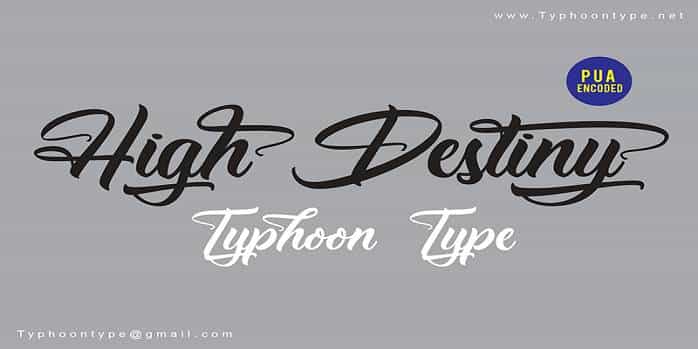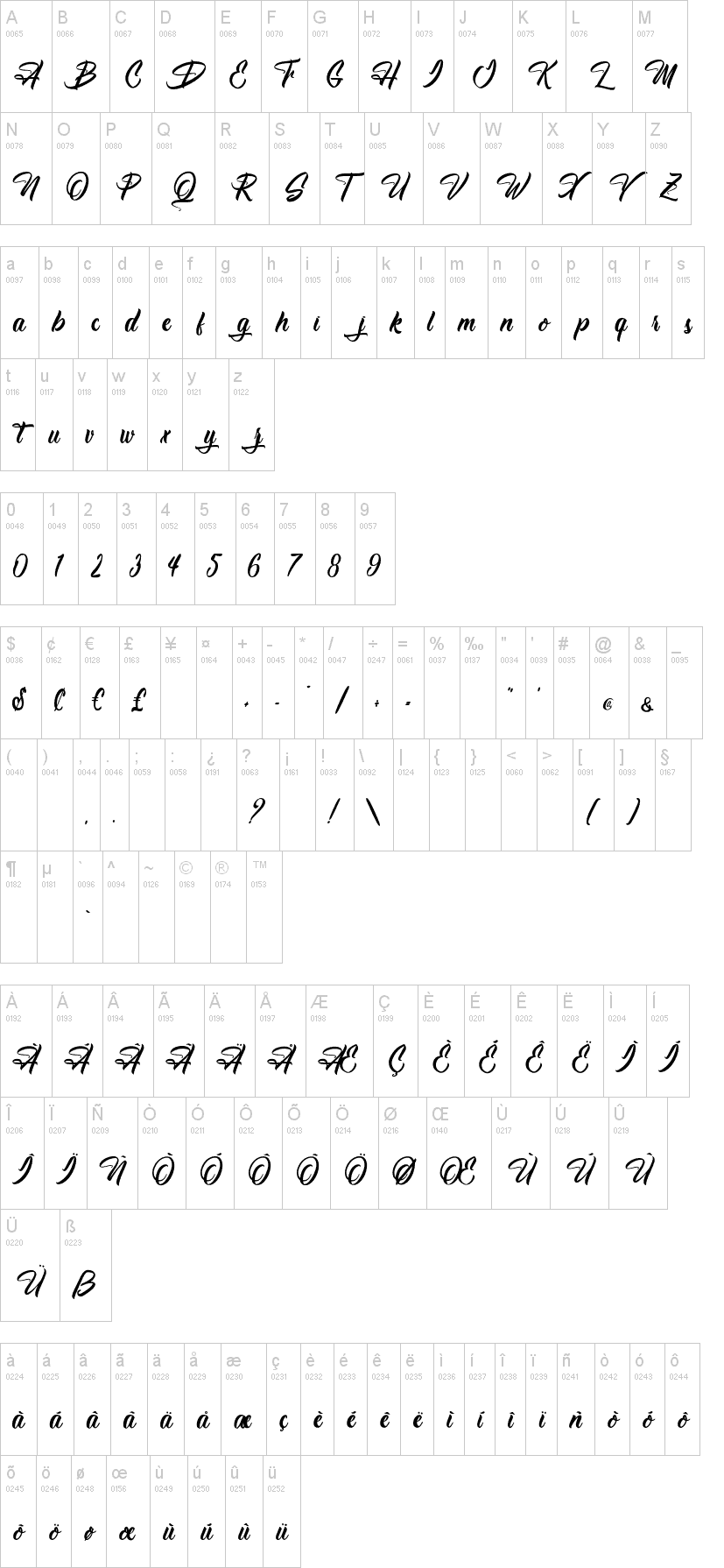
Discover High Destiny Font, part of the Brush collection—a versatile and unique font perfect for adding a personal touch to your projects. Download it for free and enjoy crafting designs with style, from invitations to social media posts. This font is available exclusively for personal use, giving you the freedom to create without limits. Unlock your creativity with High Destiny Font today!
High Destiny is a professional quality Brush font that is designed by Typhoon Type – Suthi Srisopha and is free to download and use personally. The free version includes all letters, both uppercase and lowercase, and several special characters as well.